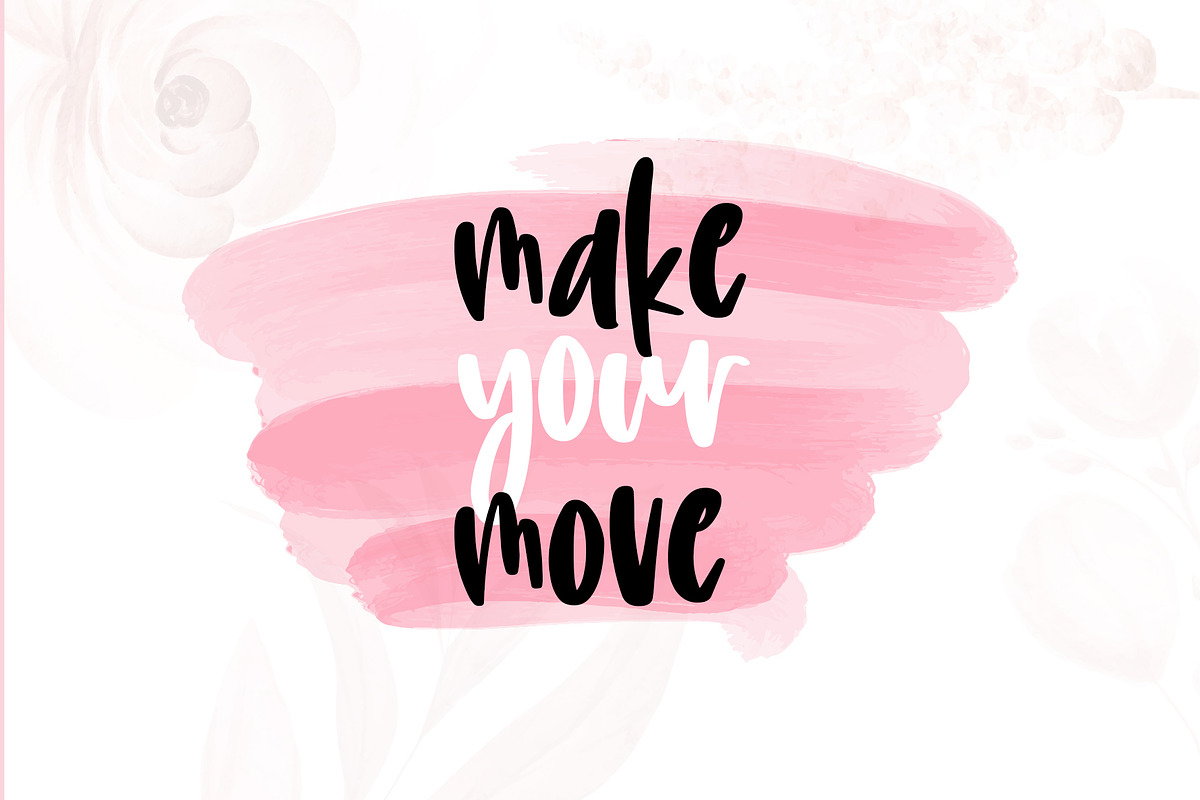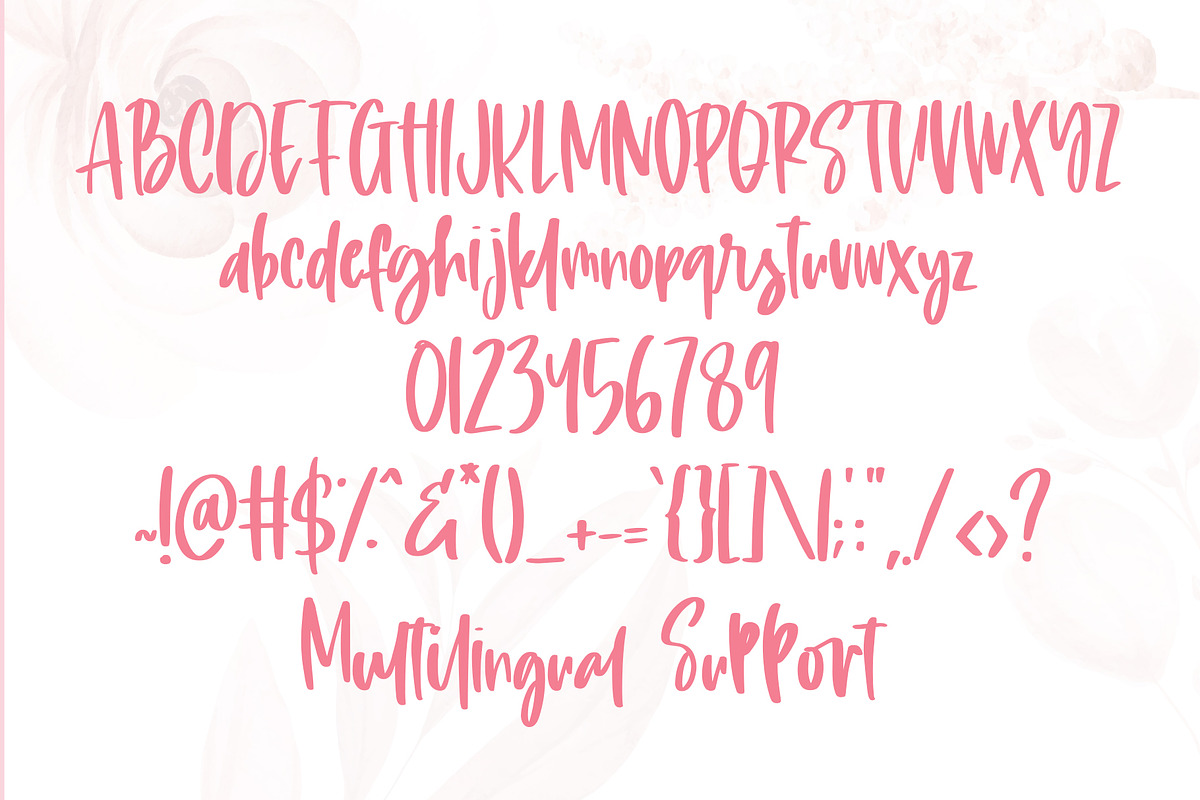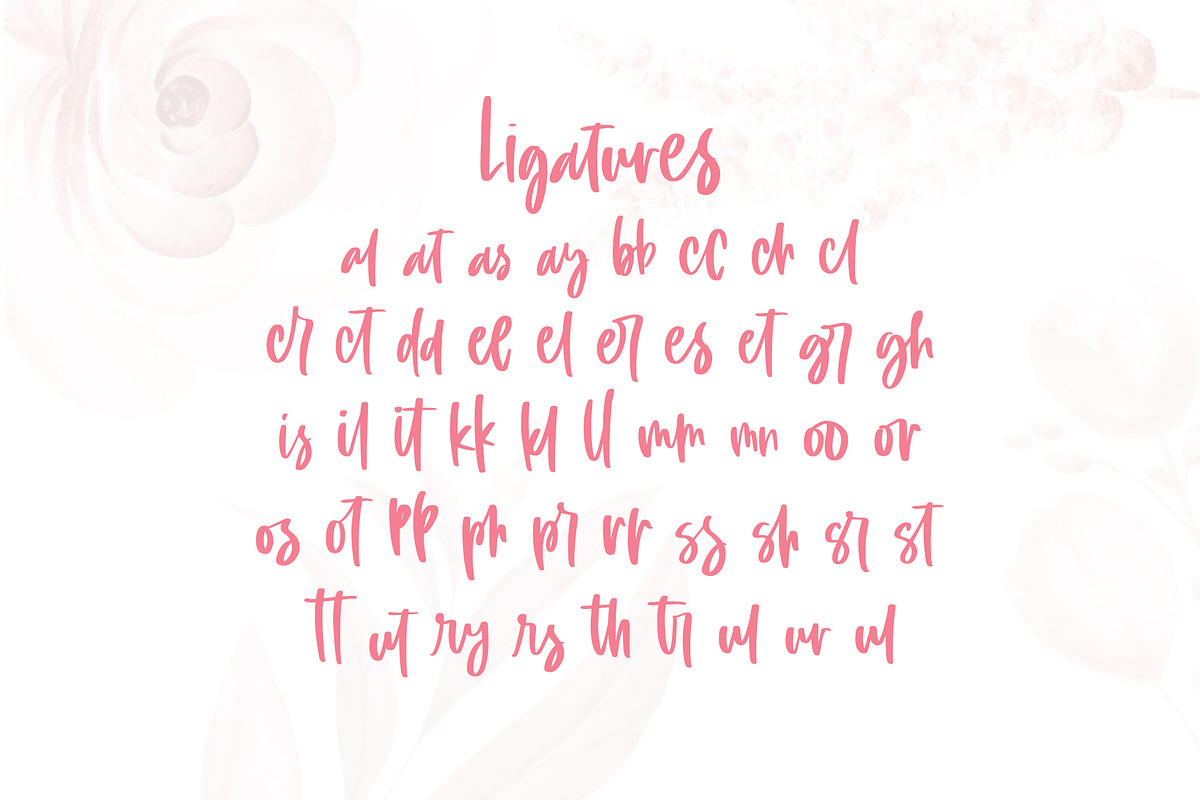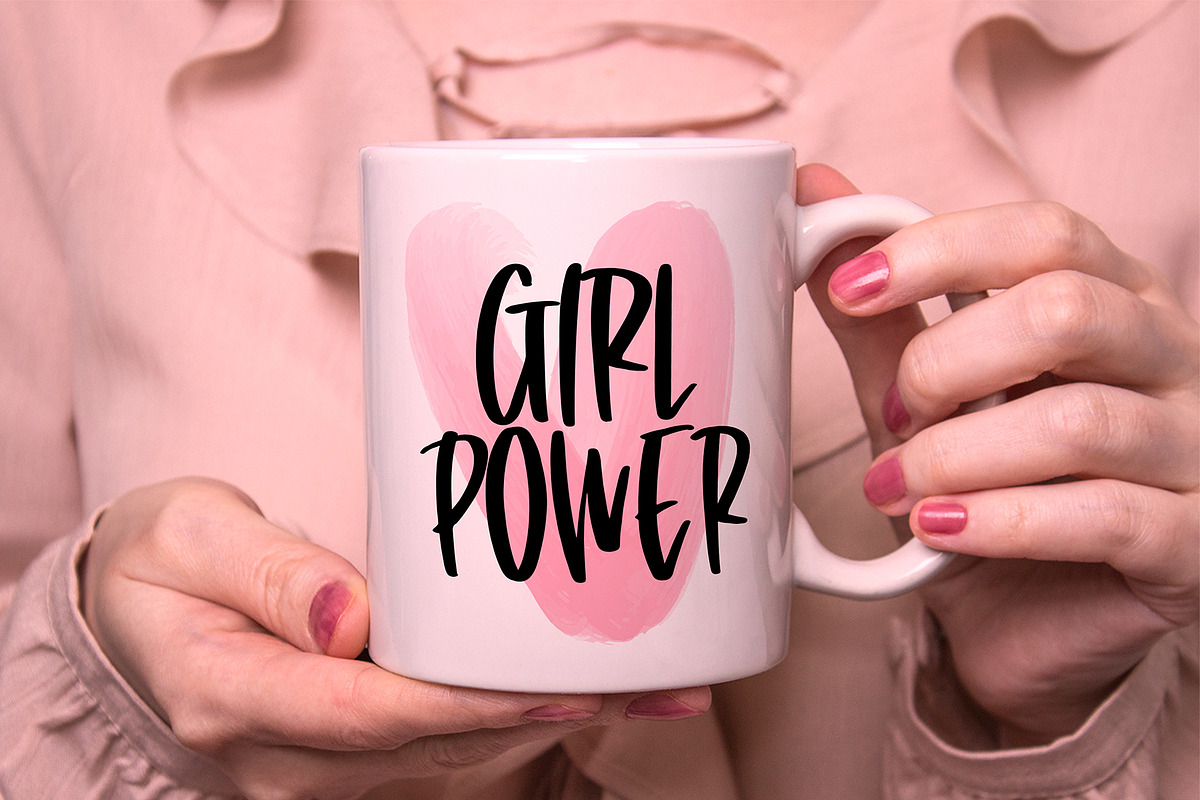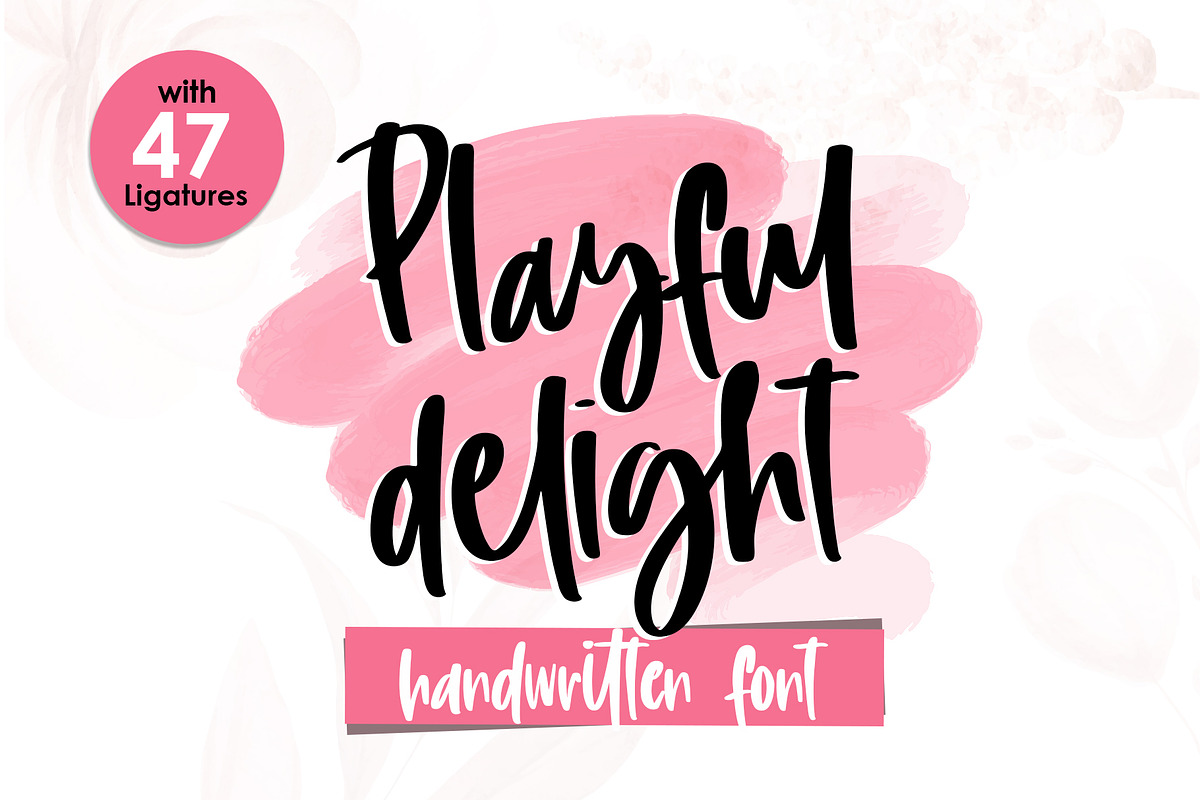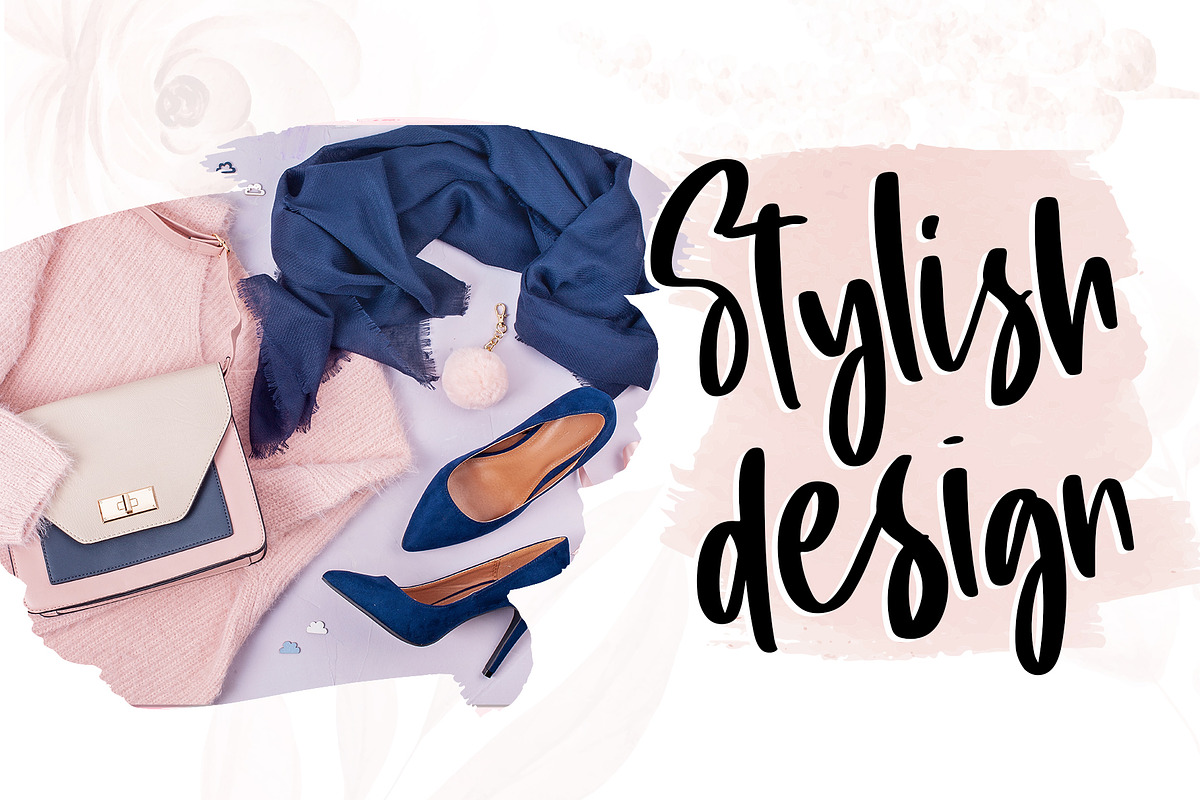
Playful Delight
Playful delight is a stylish and crafty handwritten font. Comes with 47 ligatures to make your designs more beautiful!
- Numerics
- Lowercase Ligatures